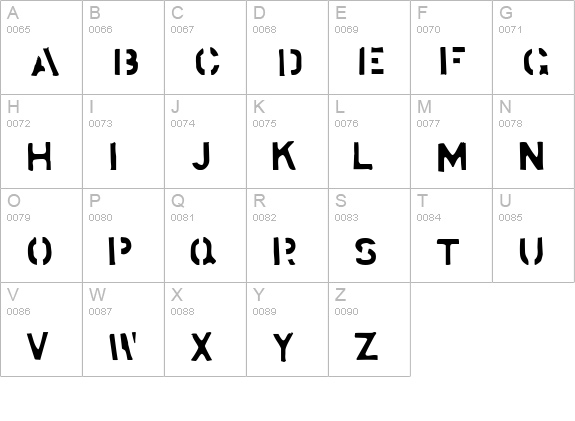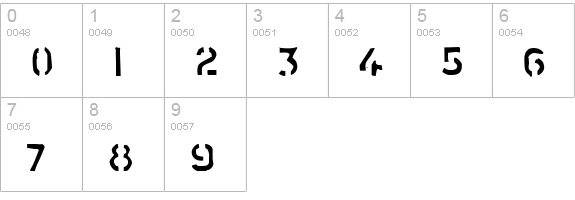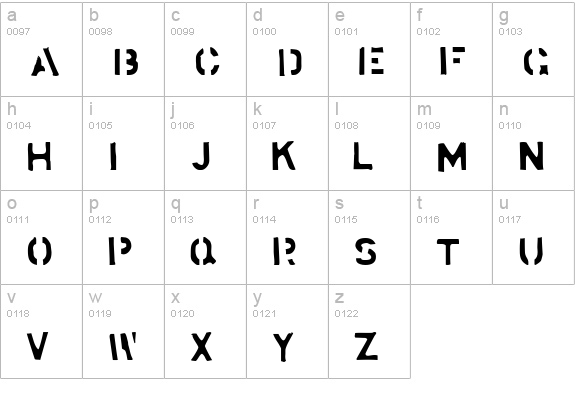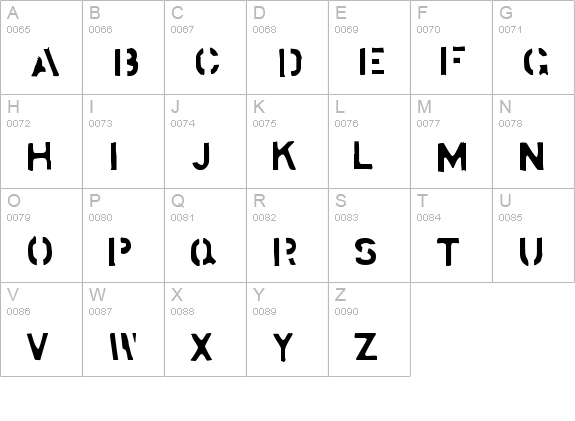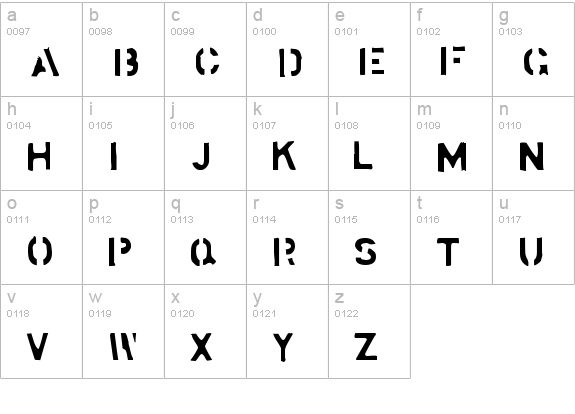
Stockstill Solid Font Details
Stockstill Solid font is a modern and sleek typeface that exudes sophistication and professionalism. Its clean lines and bold appearance make it perfect for a wide range of design projects, from branding to editorial design. The Stockstill Solid font is versatile and can be used for both headers and body text, adding a touch of elegance to any project. The best part is that Stockstill Solid font is available for free download at FontsMarket.com, making it accessible to designers of all levels. Whether you're working on a personal project or a client's design, this font is sure to elevate your work and make a lasting impression. Download Stockstill Solid font today and take your designs to the next level!